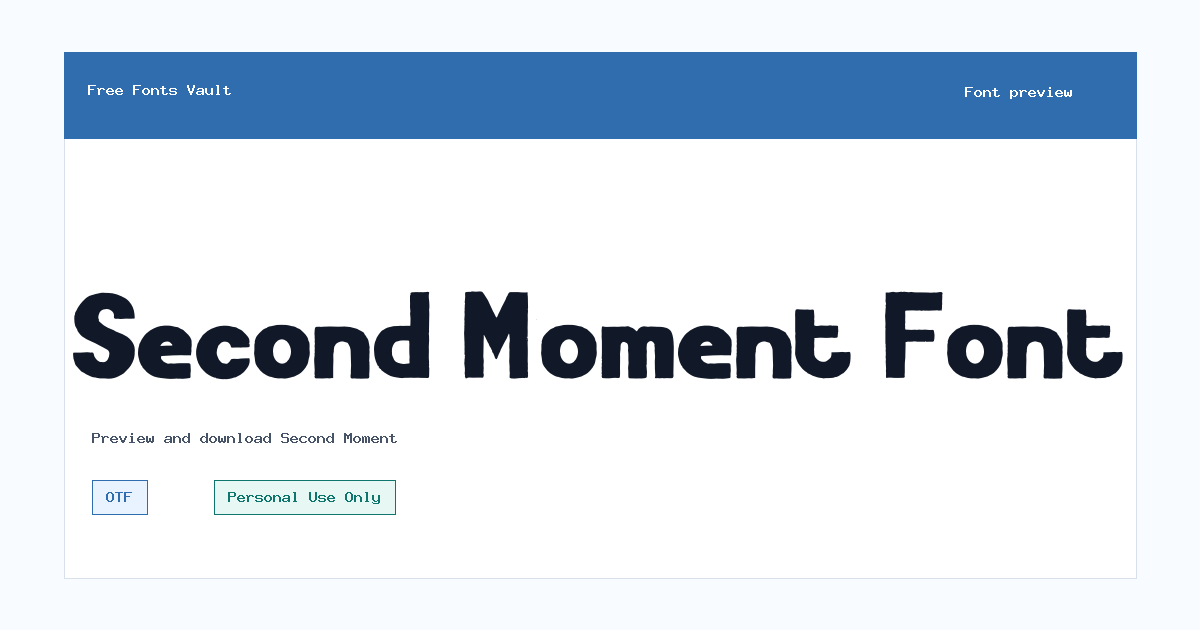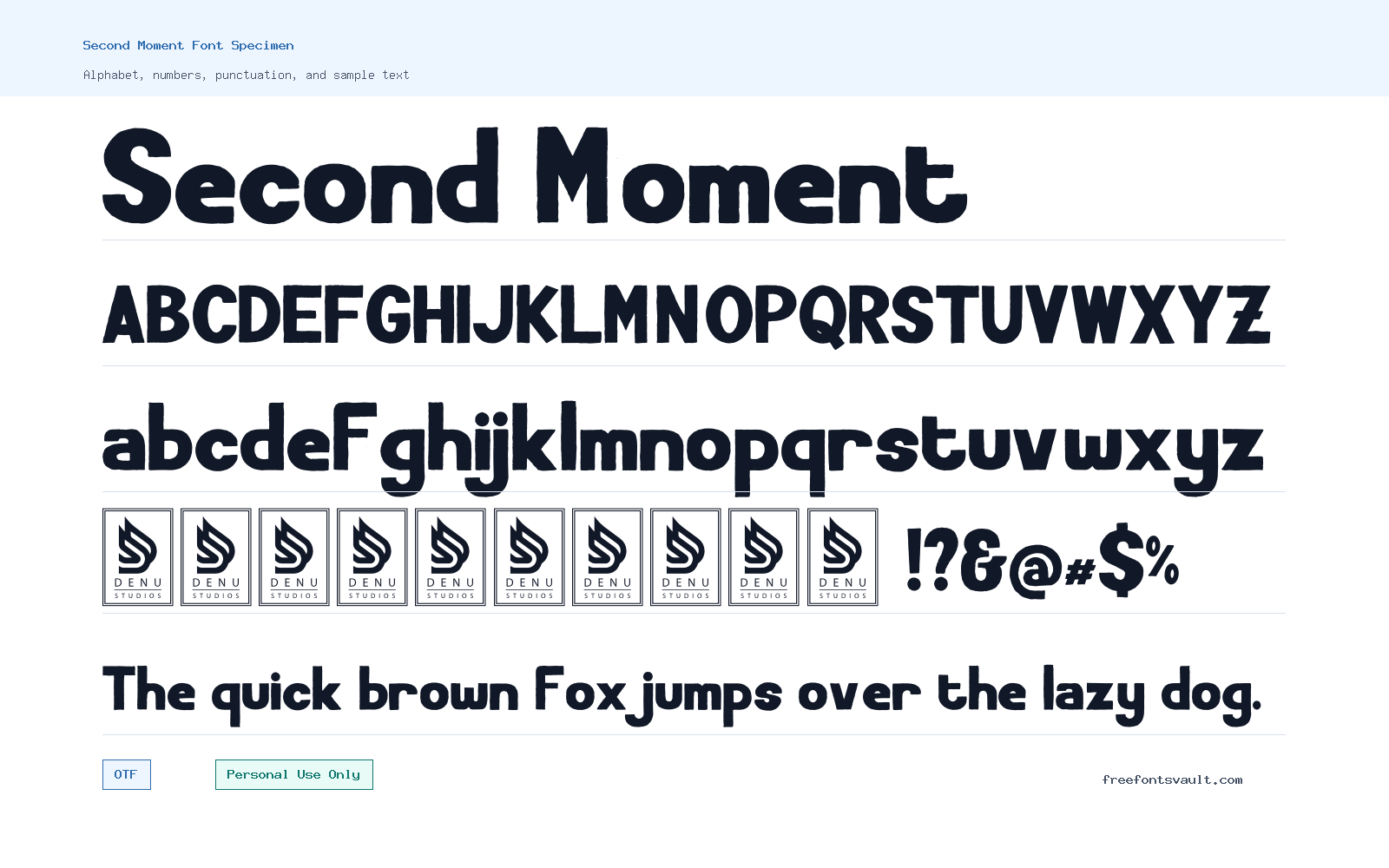
Second Moment
- Designer Dede Nugraha
Second Moment font.
Second Moment is a personal-use font duo with two OTF files: a regular style and a script style. It is useful when you want a coordinated display look with both a cleaner companion font and a more expressive handwritten option.
About Second Moment
Second Moment works best as a display family rather than a long-reading text font. The script file gives the family its more decorative side, making it suitable for names, short quotes, invitation-style headings, and social graphics. The regular file can help support the script with simpler wording, labels, or small secondary text, so you do not have to build the whole design from one ornate style.
- Invitations, greeting cards, and personal stationery drafts
- Logos, quote graphics, packaging mockups, and short decorative headings for personal projects
Use the script style where personality matters most, such as a name, headline, or short phrase. Use the regular style as a supporting companion, and increase spacing or size if the preview looks crowded. Always test uppercase, lowercase, numbers, and punctuation before finalizing a design.
What is Second Moment best used for?
It is best for short display text such as invitations, personal cards, names, quotes, social posts, and decorative headings. It is not ideal for long paragraphs or very small text.